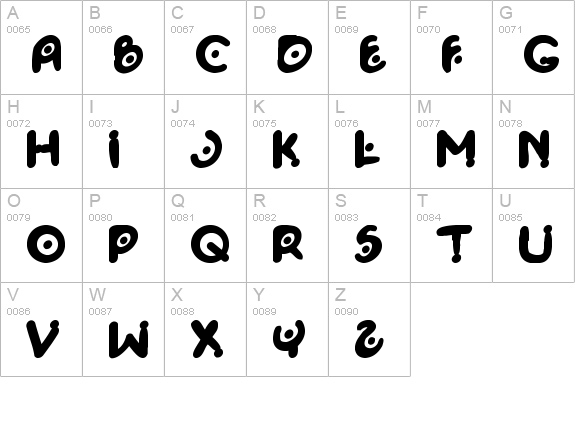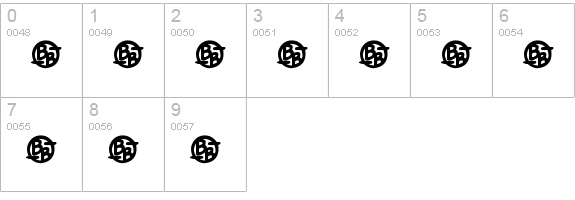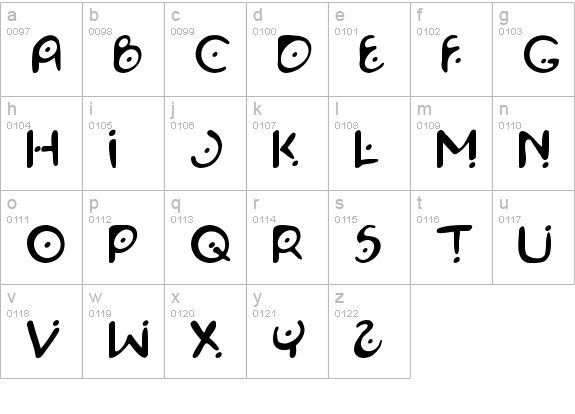
Space Pontiff Font Details
Introducing Space Pontiff, a captivating and futuristic font that will transport your designs to otherworldly dimensions. With its sleek and elegant letterforms, Space Pontiff is the perfect choice for projects that require a touch of cosmic sophistication. This font's unique design takes inspiration from the vastness of the universe, blending geometric shapes with a touch of intergalactic flair. Each character is carefully crafted to create a harmonious balance between modern aesthetics and a sense of otherworldly wonder. Space Pontiff is not just visually stunning, but also highly versatile. Its clean lines and well-defined curves make it ideal for a wide range of design applications, from logos and branding to editorial layouts and web design. Whether you're working on a sci-fi book cover or a futuristic poster, this font will instantly elevate your work to the next level. What makes Space Pontiff even more impressive is that it is freely available to download at FontsMarket.com. This means that you can access this stunning font without any financial constraints, allowing you to unleash your creativity without limitations. So why wait? Embrace the endless possibilities of Space Pontiff and take your designs to infinity and beyond.